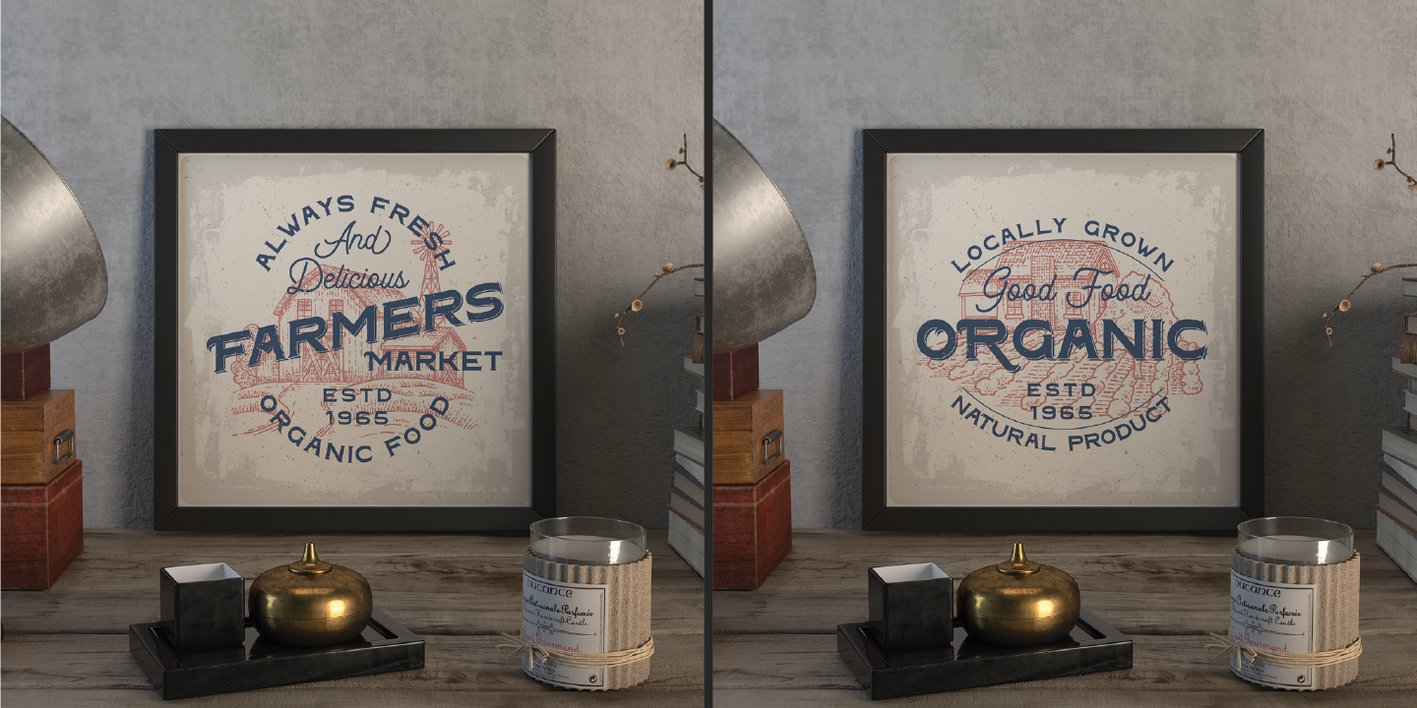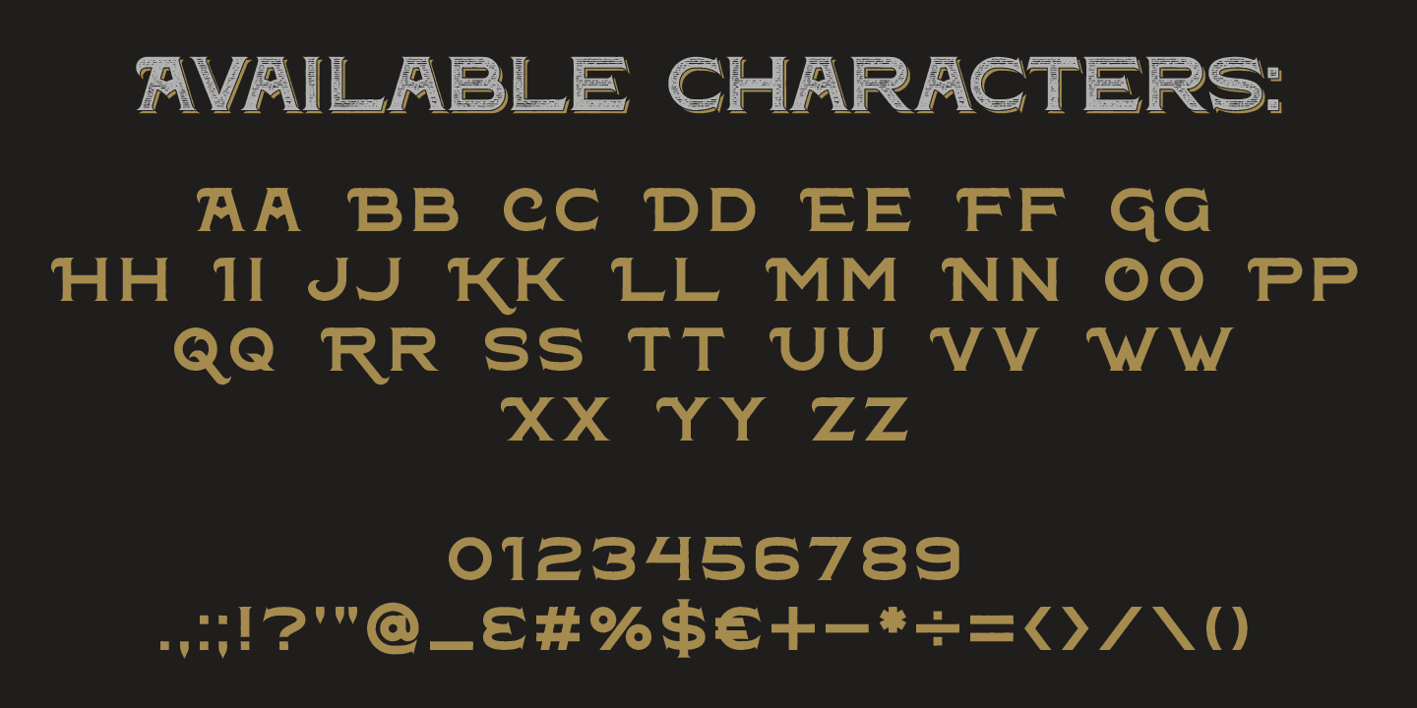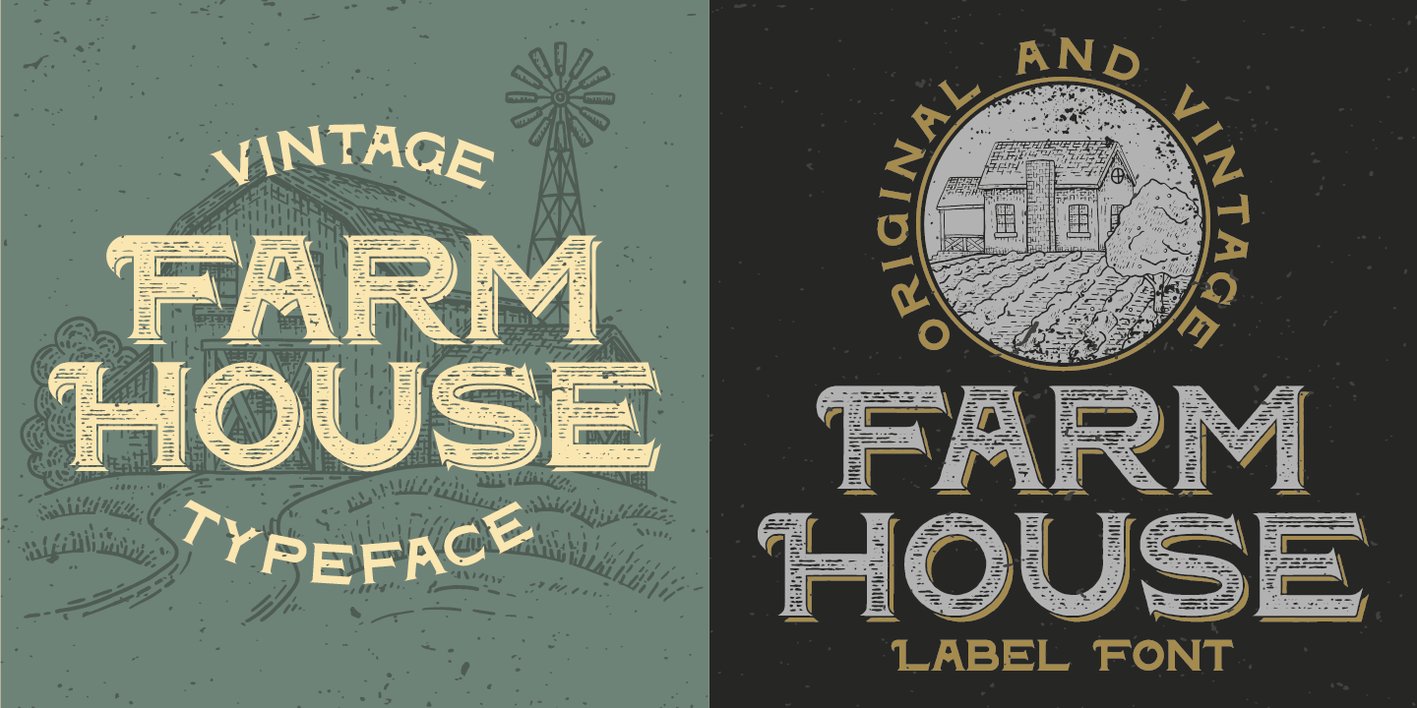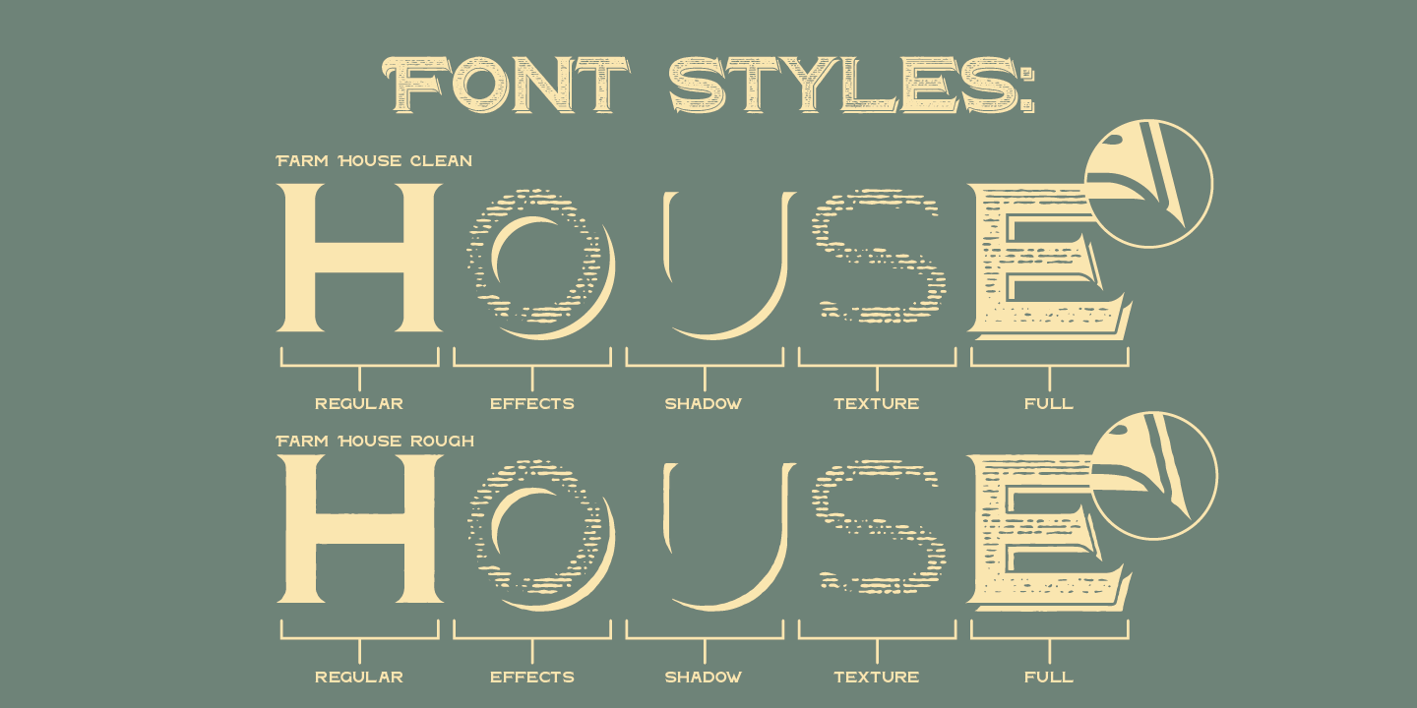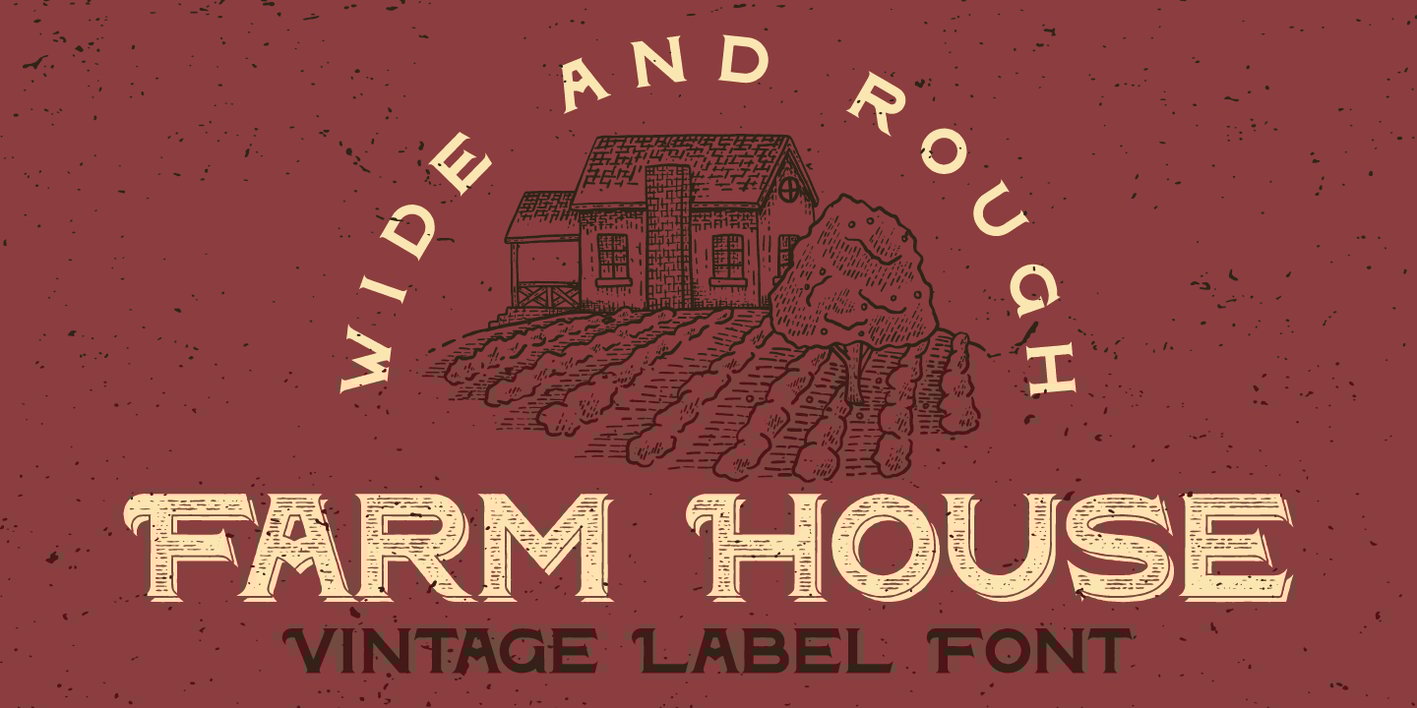
Farm House Font
A vintage look label font named "Farm House".Typeface includes five styles for clean version and five styles for rough version, for sample look at 4th preview. This font will good viewed on any retro design like poster, t-shirt, label, logo etc. For using effects layers (for clean or rough version): - Type your text in Regular. - Copy that and paste at the same position. - Change the style to Shadow or Texture.